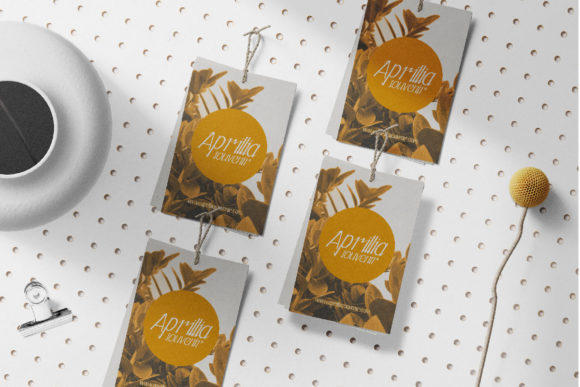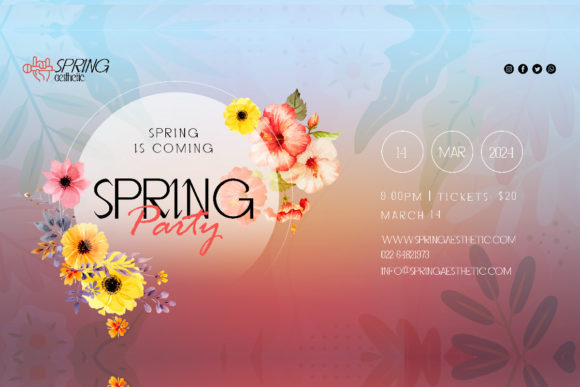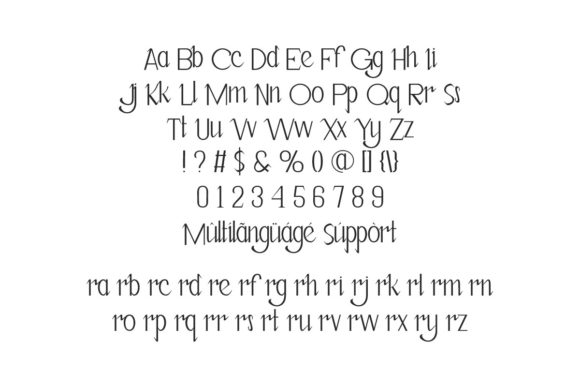
Introduction to Gorgeous Baby Font
Gorgeous Baby is a stylish and delicate serif font.
It will add elegance and class to any of your design projects This font is PUA encoded which means you can access all of the glyphs and swashes with ease.
Key Features of Gorgeous Baby Font
Why Choose Gorgeous Baby Font?
Gorgeous Baby Font offers exceptional quality and versatility, making it a valuable addition to your design toolkit. Whether you’re creating for personal projects or commercial use, Gorgeous Baby Font delivers professional results.